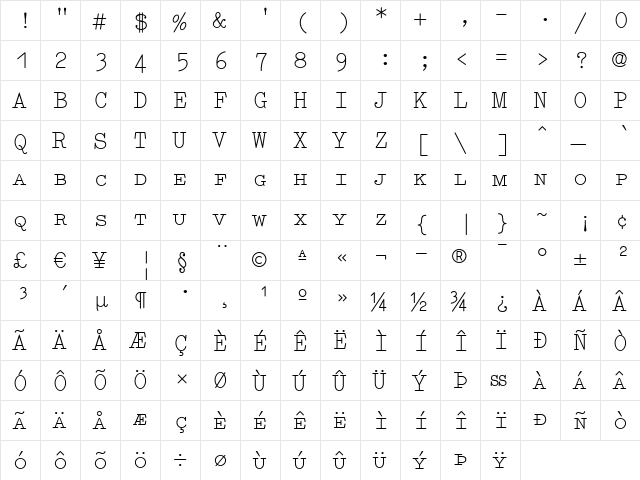
Elementa SC Regular
Design Context for Elementa SC Typeface
Elementa SC takes a measured approach to typography — its balanced proportions and neutral character make it a reliable workhorse for both digital and print work.